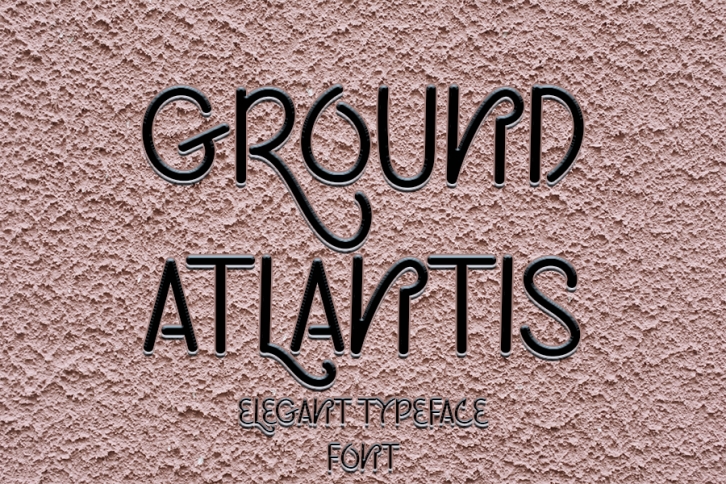
Ground Atlantis is a flowing, Sans serif font, described with a touch of elegance, perfect for your favorite projects. Fall in love with its completely different and timeless style and can use it to create wall designs, logos, wedding invitations, stationery, product labels, photography and much more.
+PUA-Encoded for many alternates and ligatures